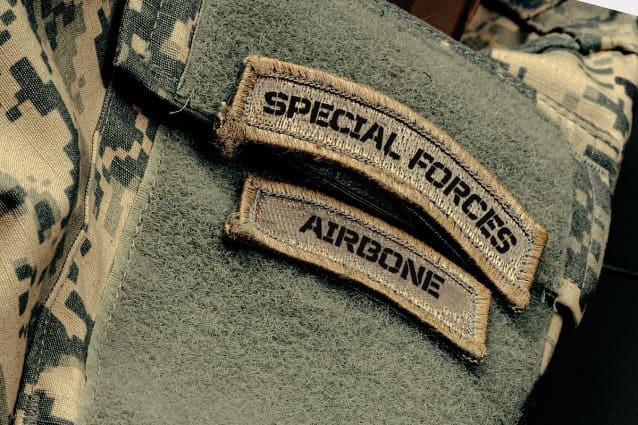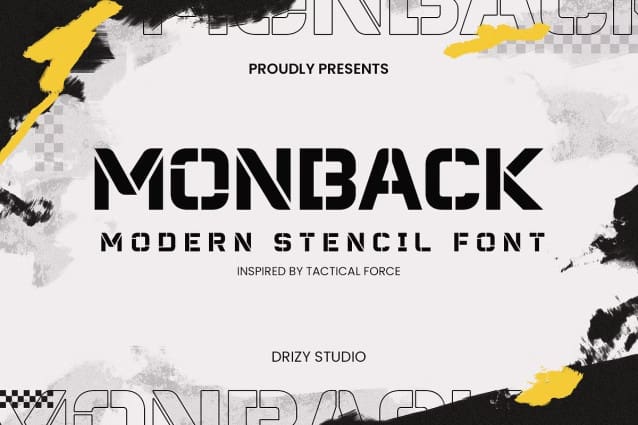
Monback Stencil Font
Monback Stencil Font is a modern stencil font that combines the elegance of a traditional stencil design with a sleek, minimalist aesthetic. This typeface is the perfect choice for designers, artists, and creatives looking to make a bold statement.